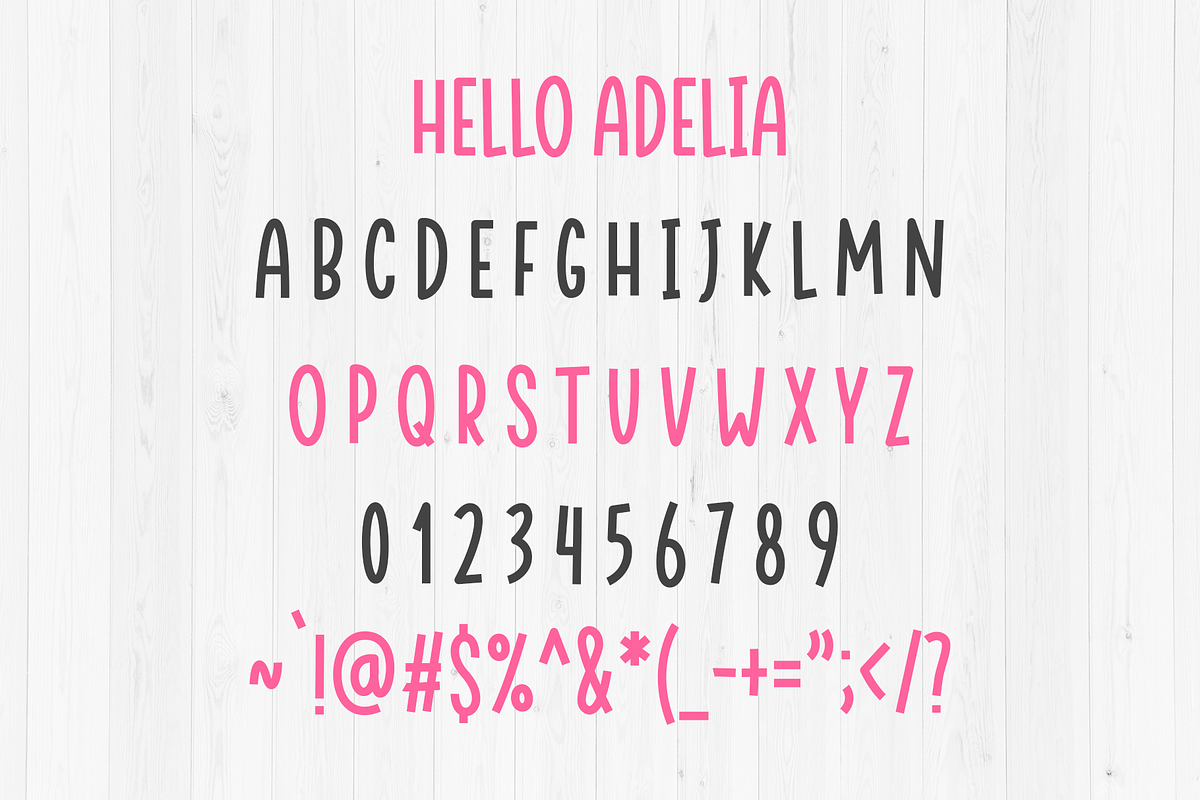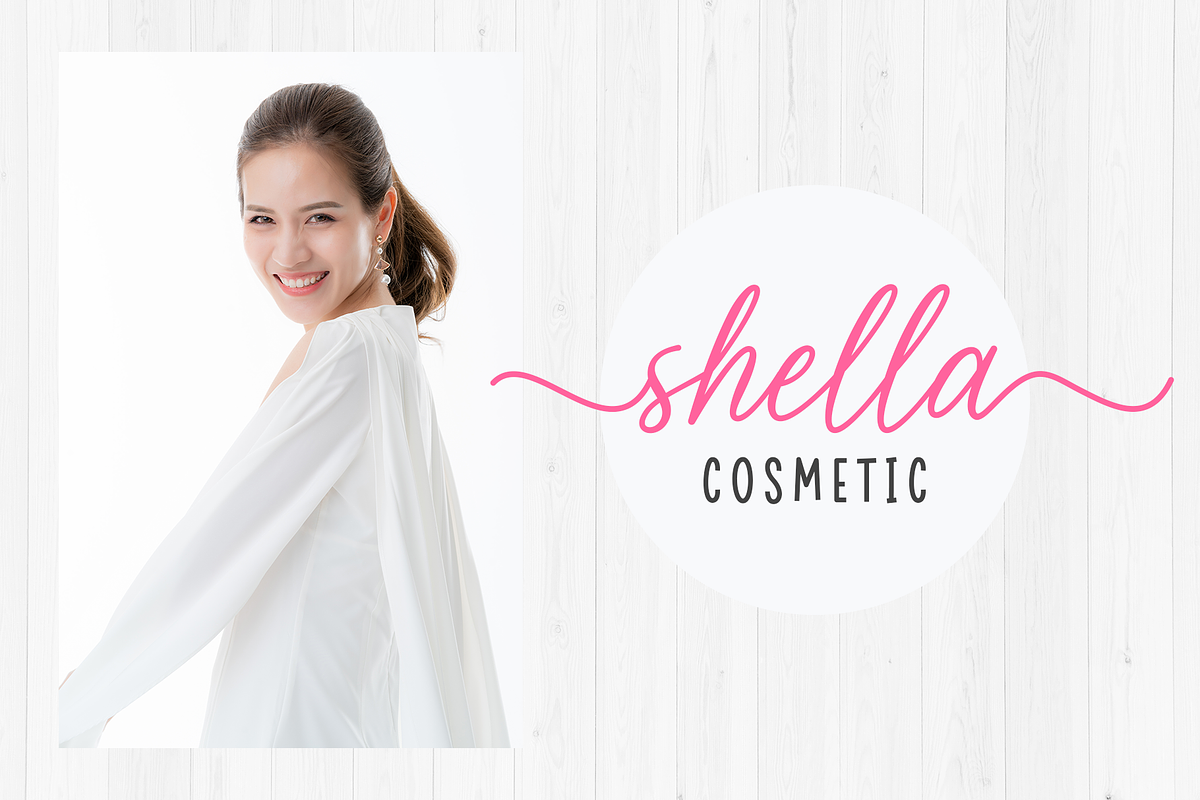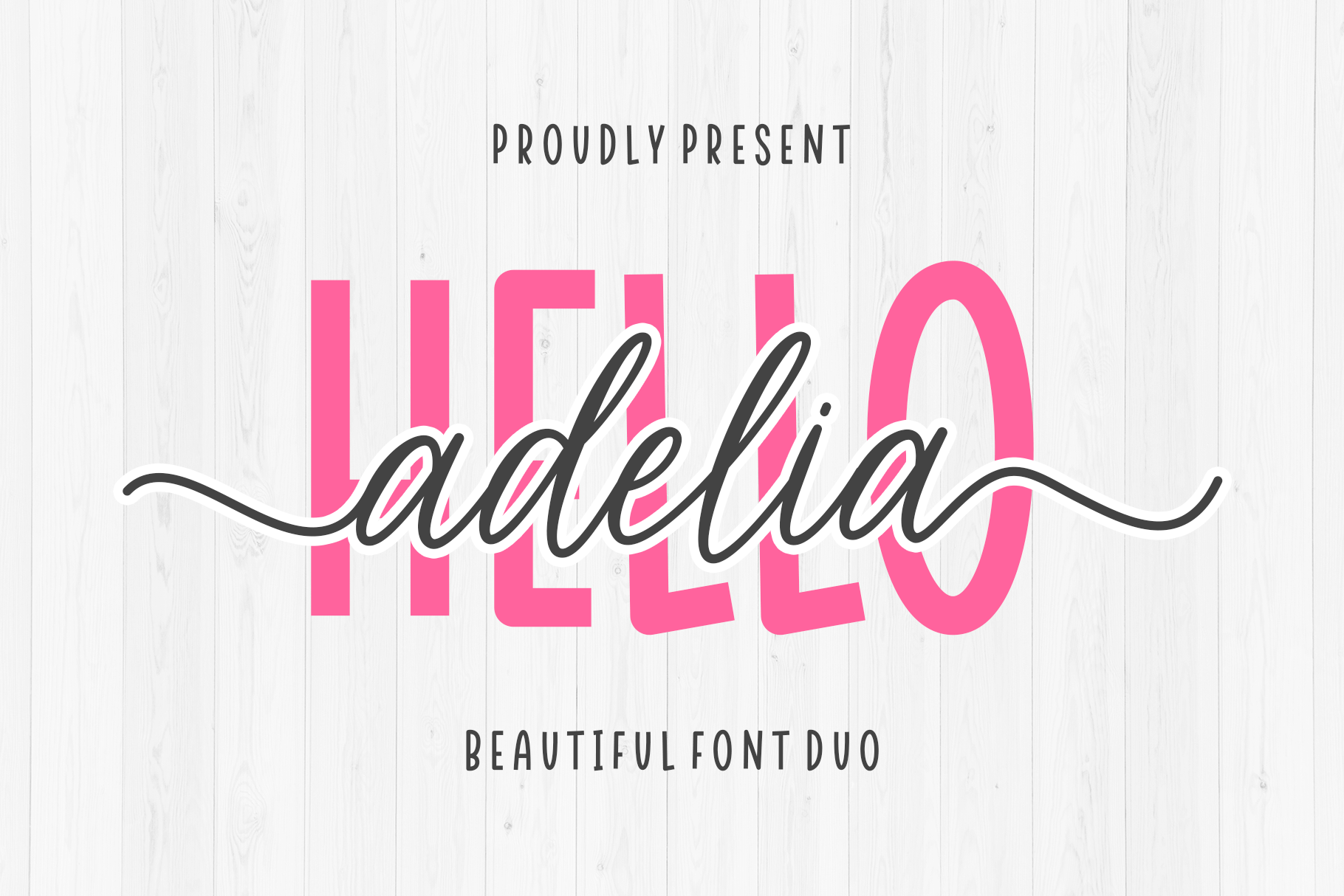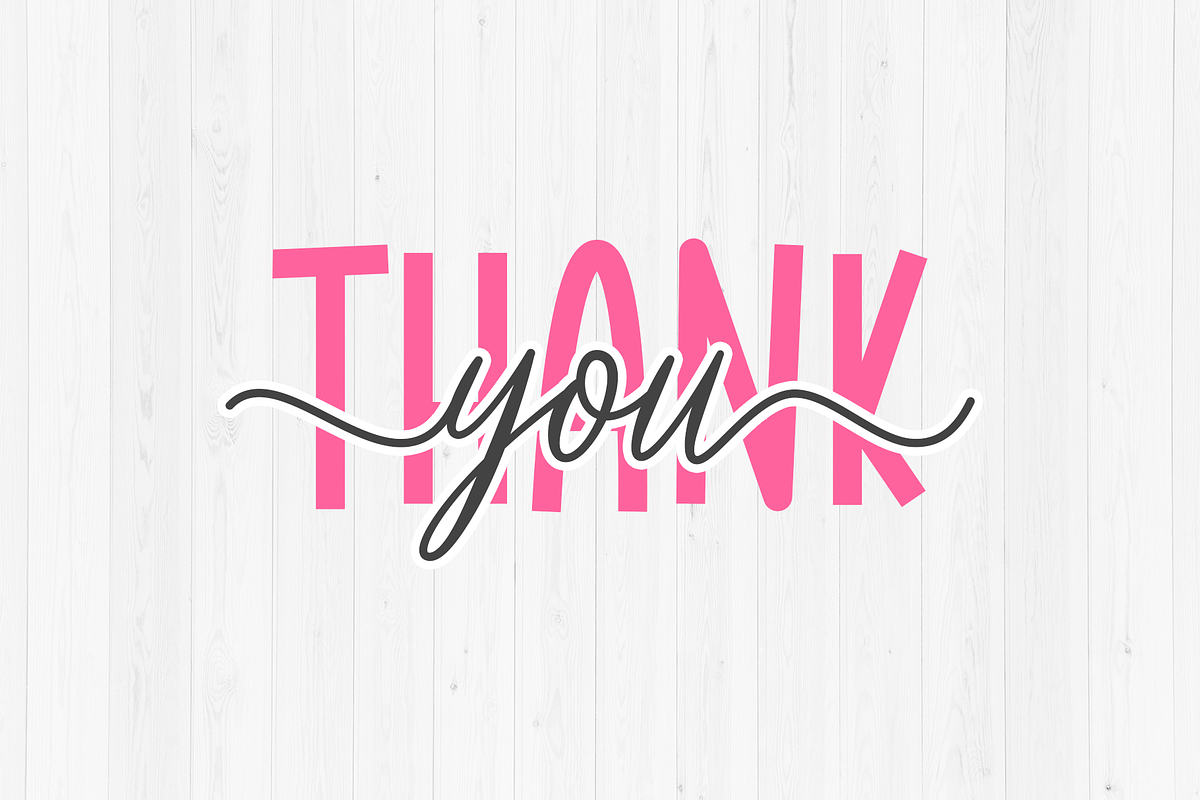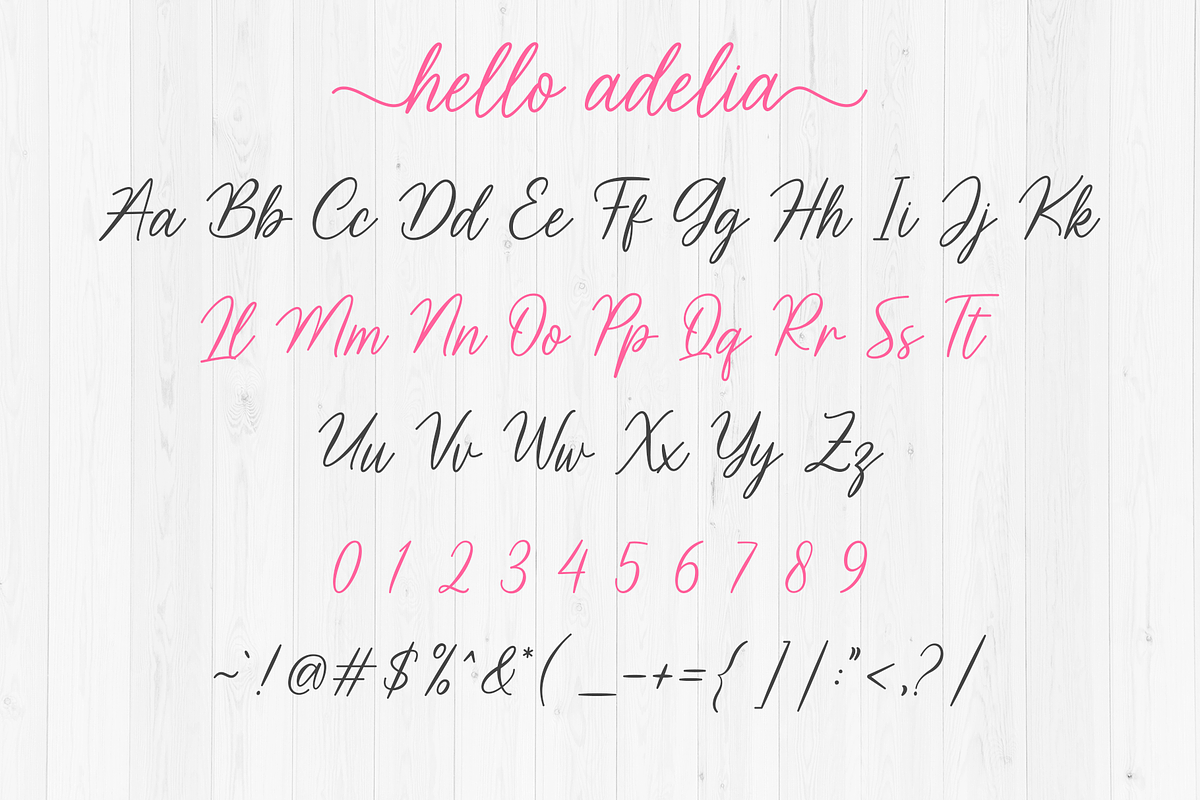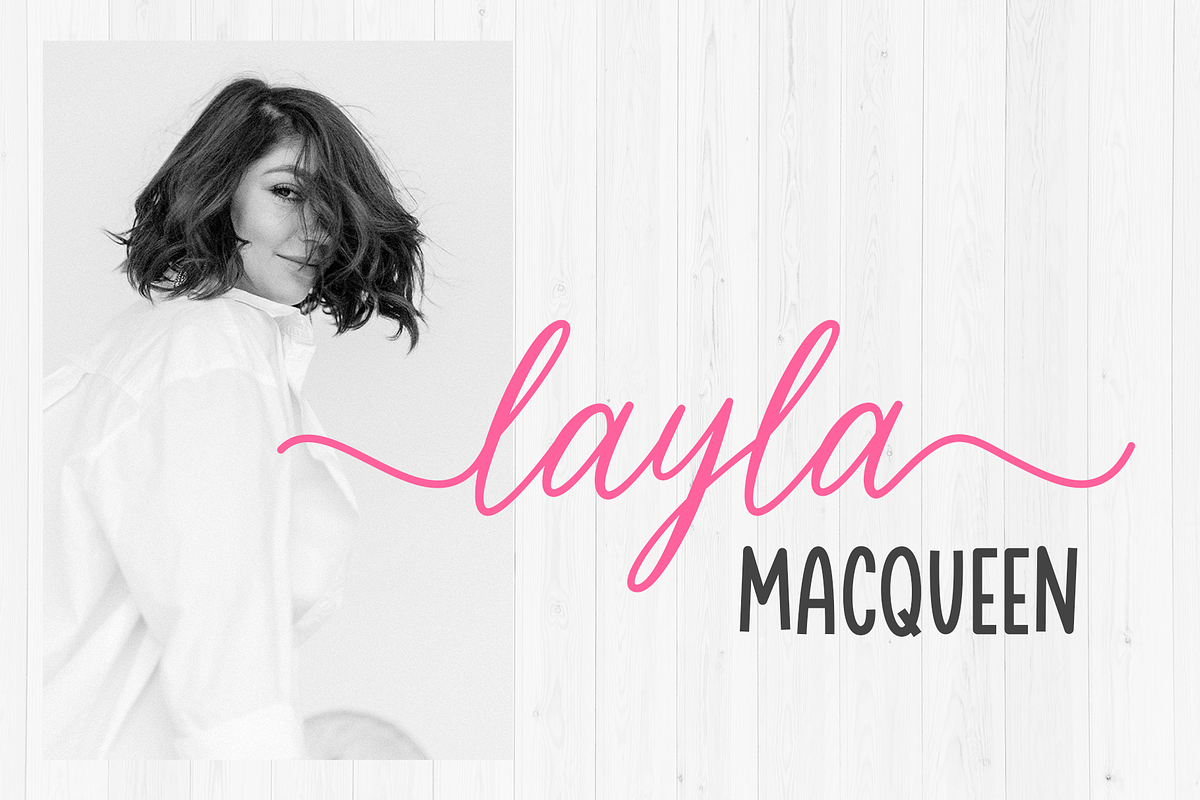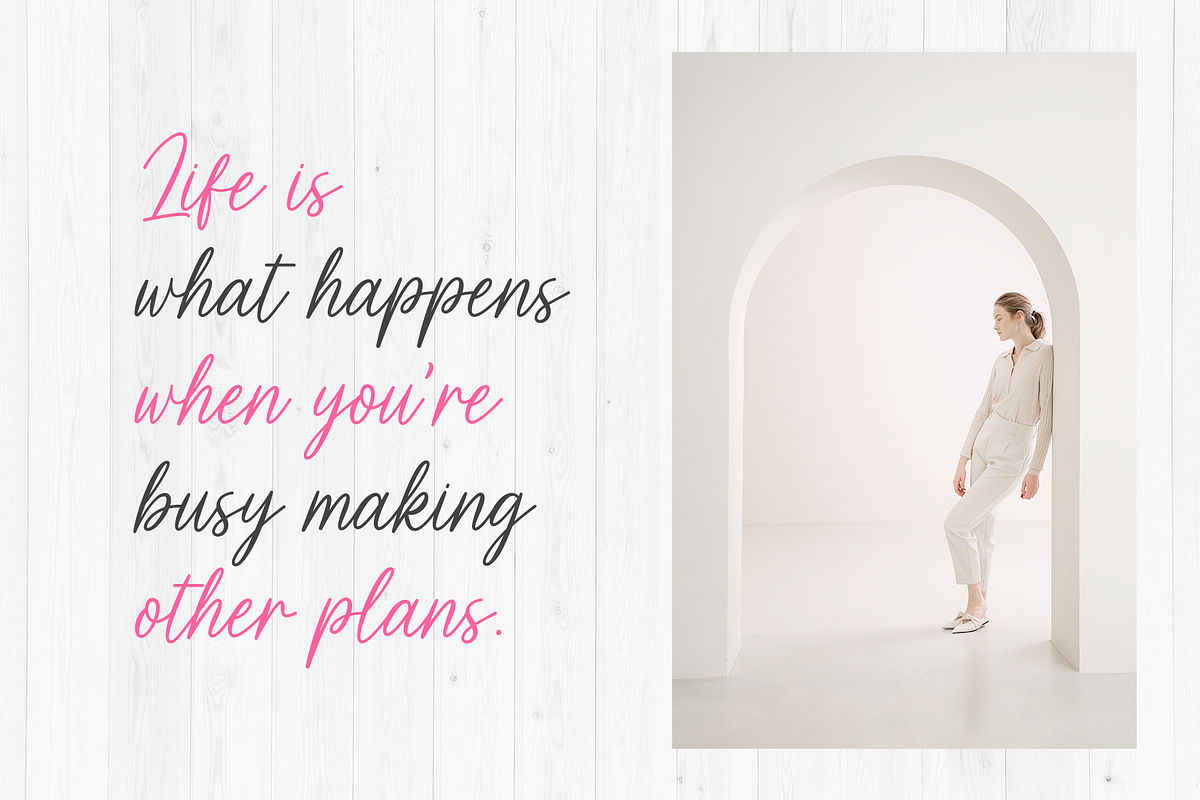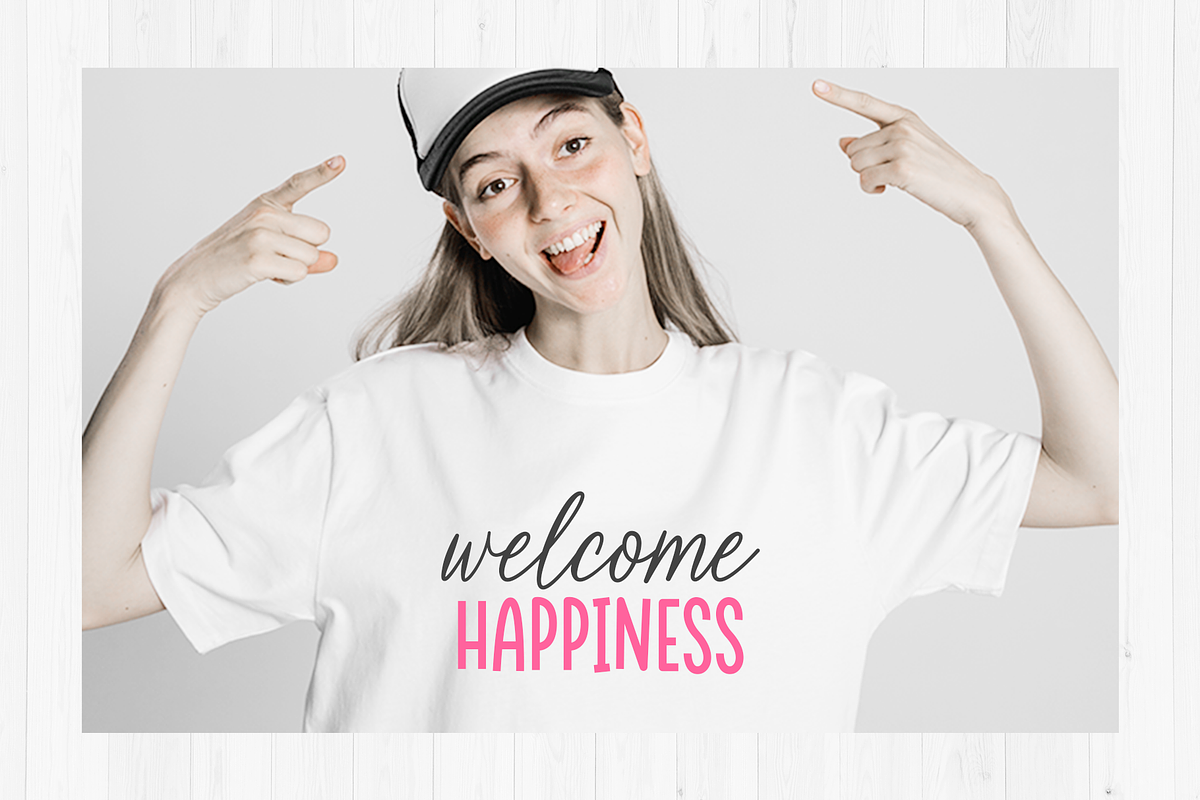
Hello Adelia - Font Duo
Hello Adelia is a lovely and beautiful font duo with two monoline and script font shapes that go really well together. be creative without limits by using two shapes at once! it would be great for any project you need!